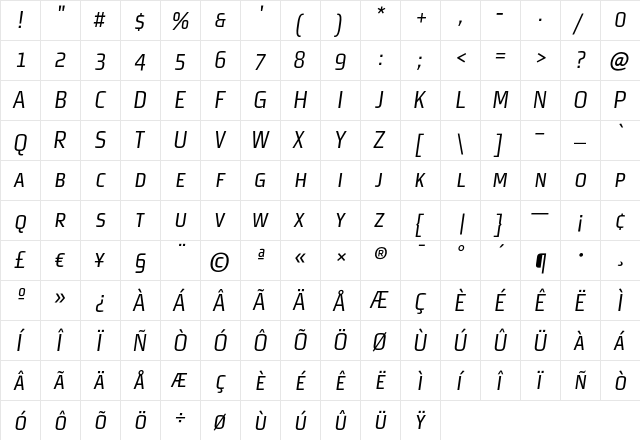
MorganSansCond ItalicExpert Font Preview
Design Context for MorganSansCond Typeface
MorganSansCond takes a measured approach to typography — its balanced proportions and neutral character make it a reliable workhorse for both digital and print work. Its italic angle brings a sense of urgency and motion to the letterforms. The condensed width makes it efficient for tight spaces without sacrificing legibility.
Pro Tip: Try MorganSansCond for annotation and caption copy alongside an upright companion — the contrast in angle creates a dynamic but ordered typographic system.